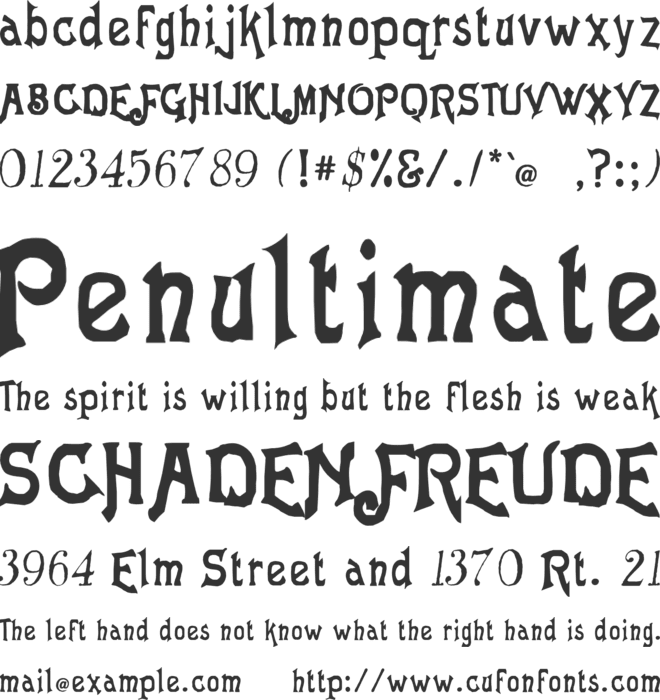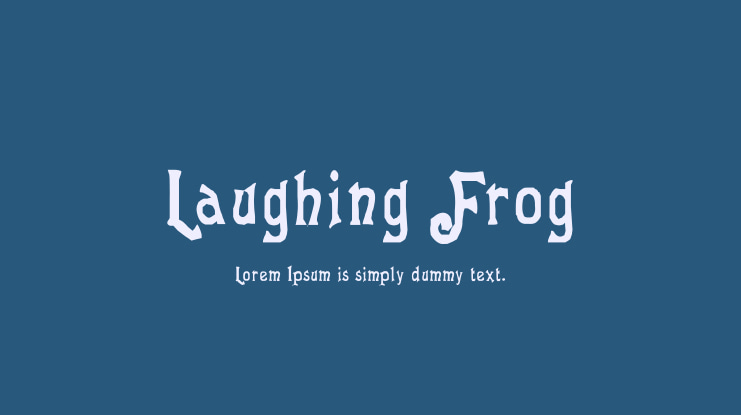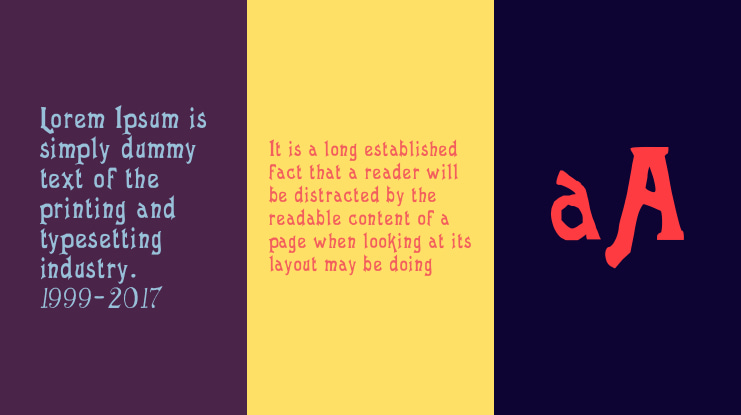
Laughing Frog Font
This font was inspired by a caption on a 1909 newspaper that said "It's Enough To Make a Frog Laugh'". At the time this newspaper was printed, it was done in the old method.